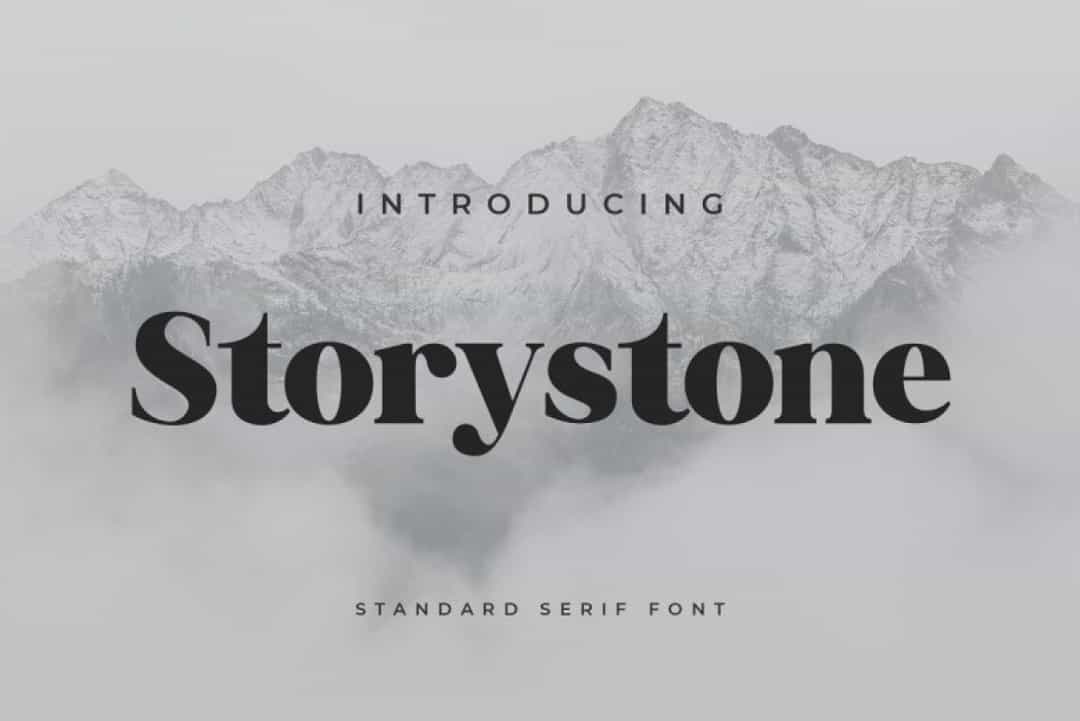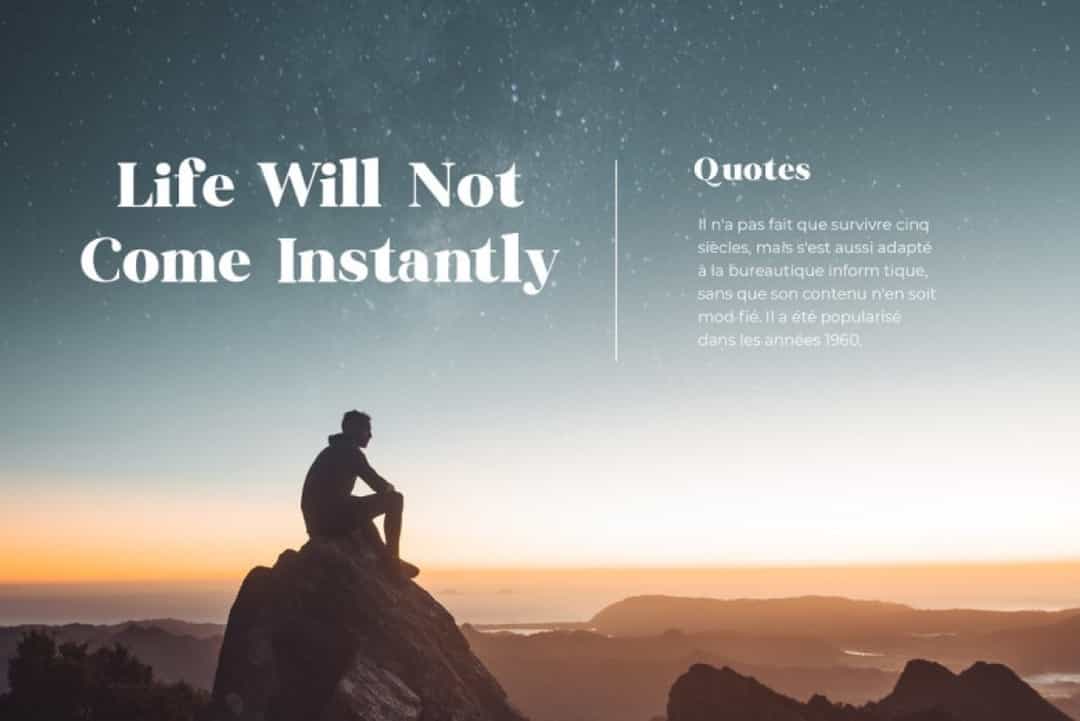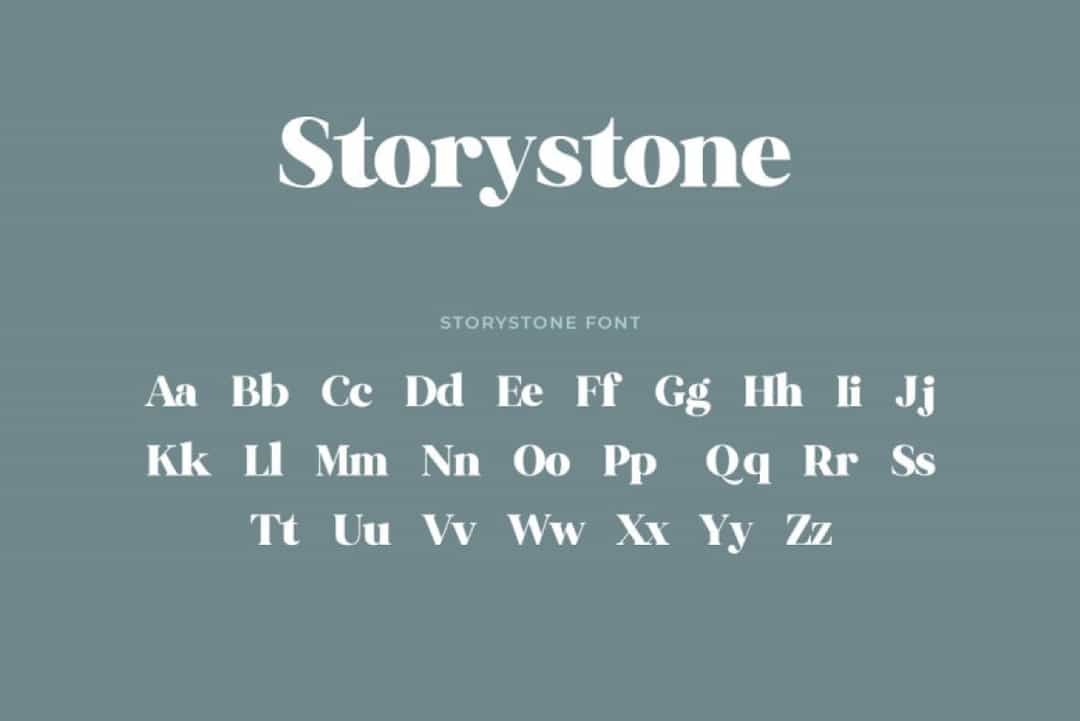
Storystone is an eye-catching serif font that blends classic fonts with minimalist design to produce stunning sophisticated fonts. Experiment quickly with its multitude of alternative styles for logos, covers posters, main packaging, T-shirts ,wedding cards, business card, titles quotes, magazines headings, web layouts, advertisements, invitations, packaging design ,books packaging, design books and virtually every other project you can imagine.